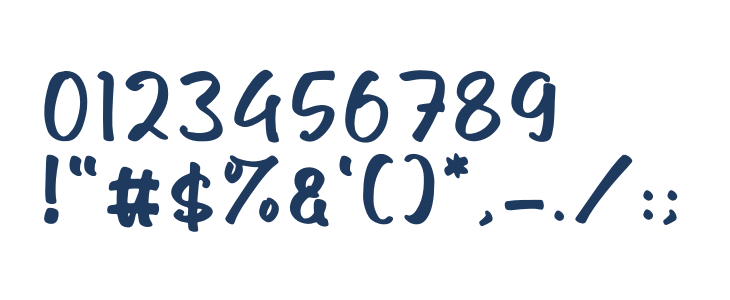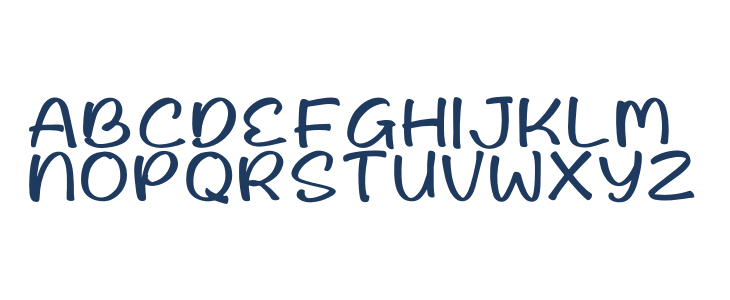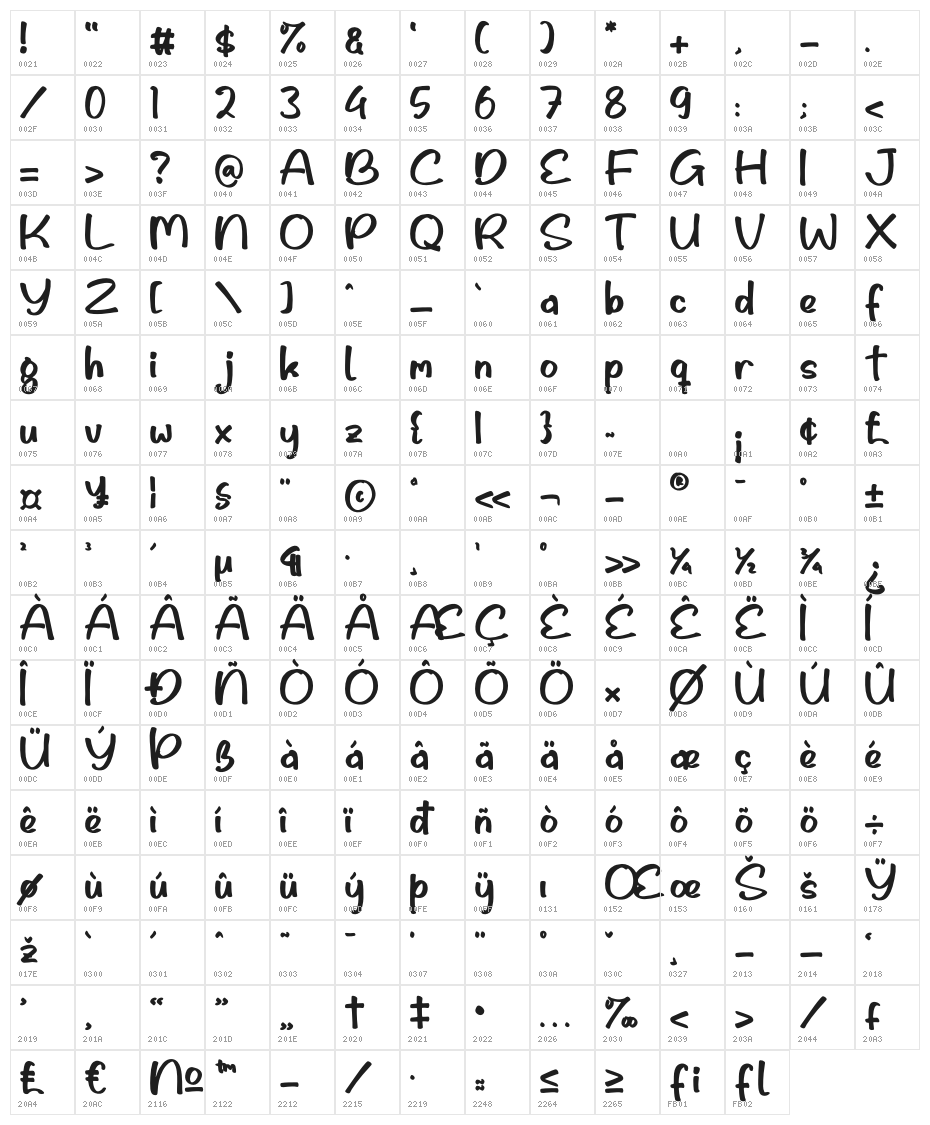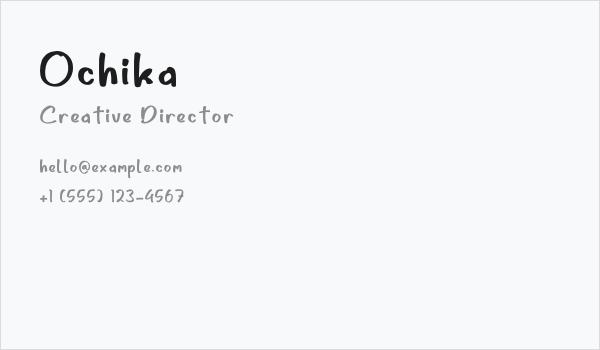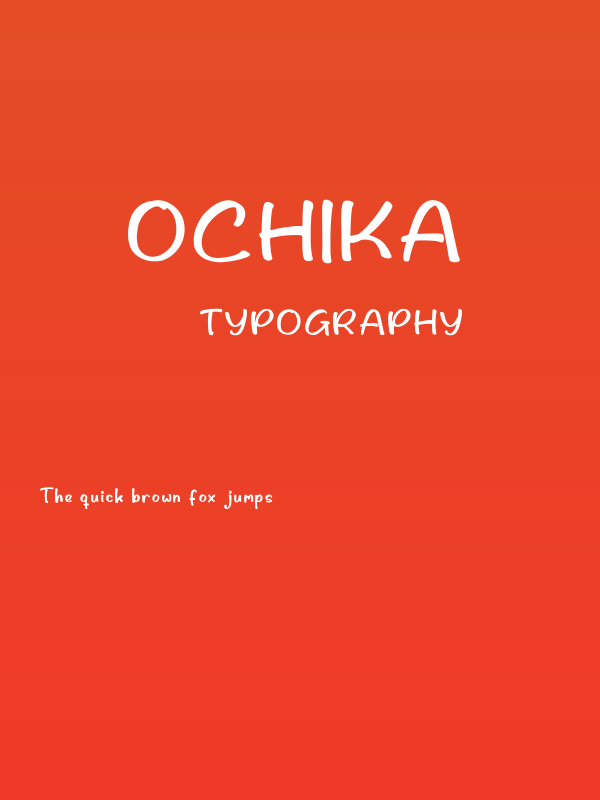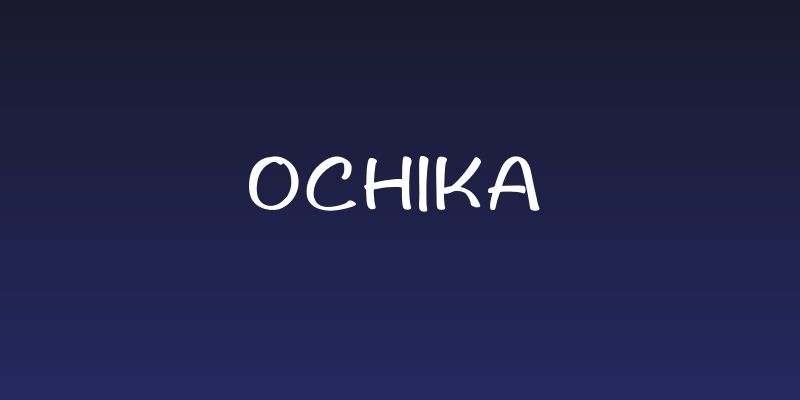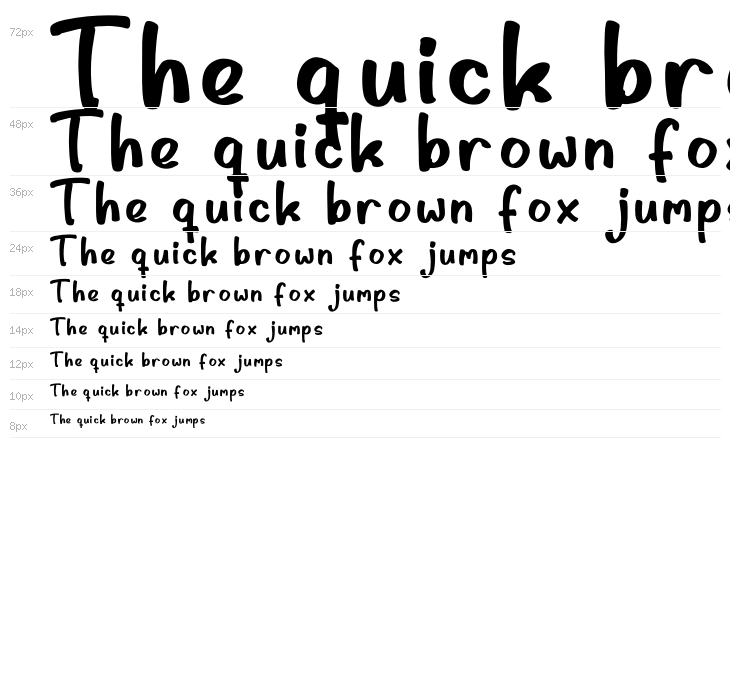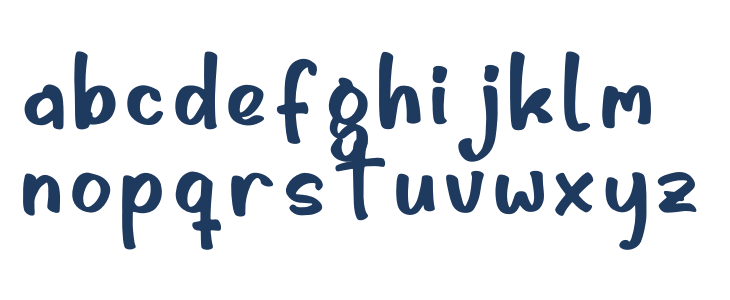
Ochika Font
Ochika Description
A playful, rounded handwritten style with consistent stroke width, casual curves, and a friendly, informal appearance. The characters are slightly irregular, enhancing the hand-drawn effect, while maintaining good legibility.
| Overall Style | Playful, Informal, Friendly |
| Use Case | Headlines, Short text, Logos, Posters |
| Proposed Projects | Children's books, greeting cards, posters, social media graphics, informal branding. |